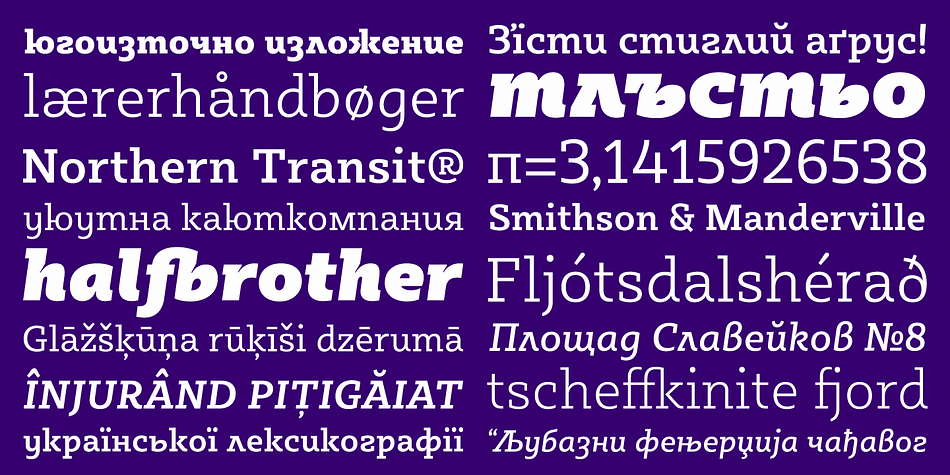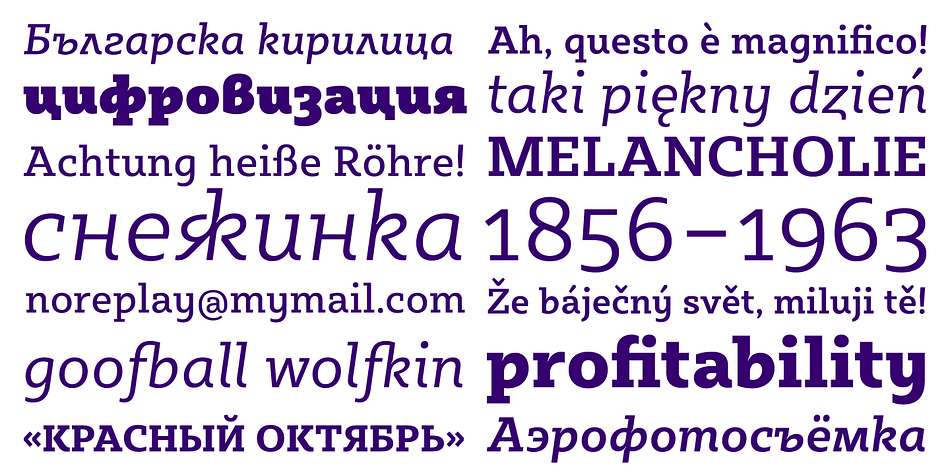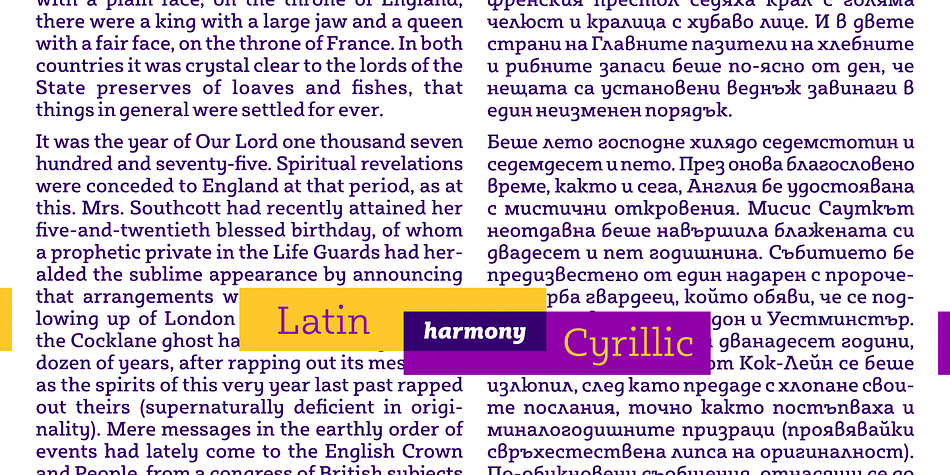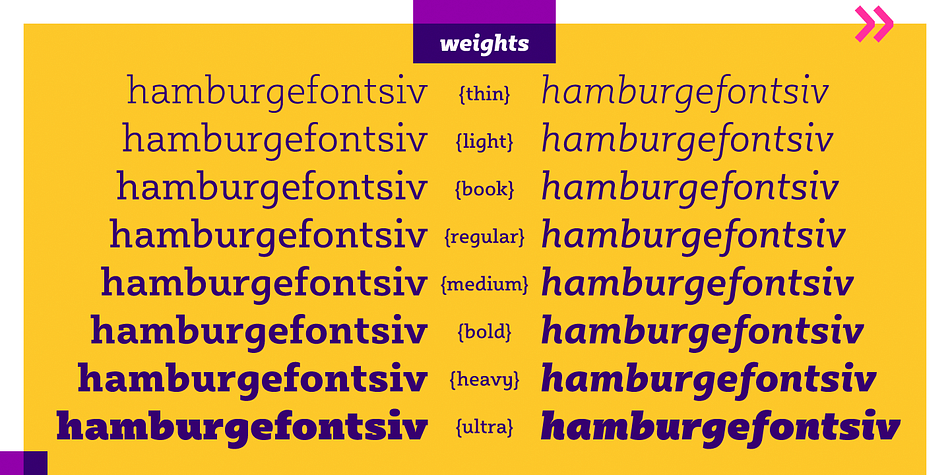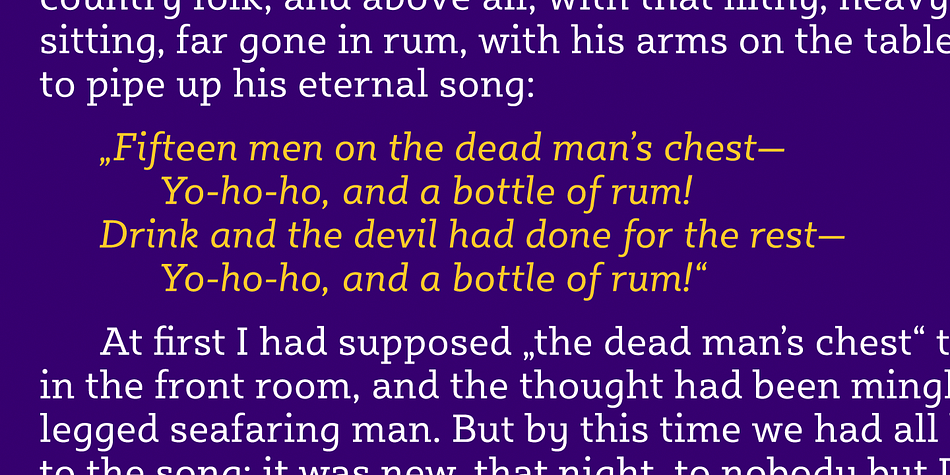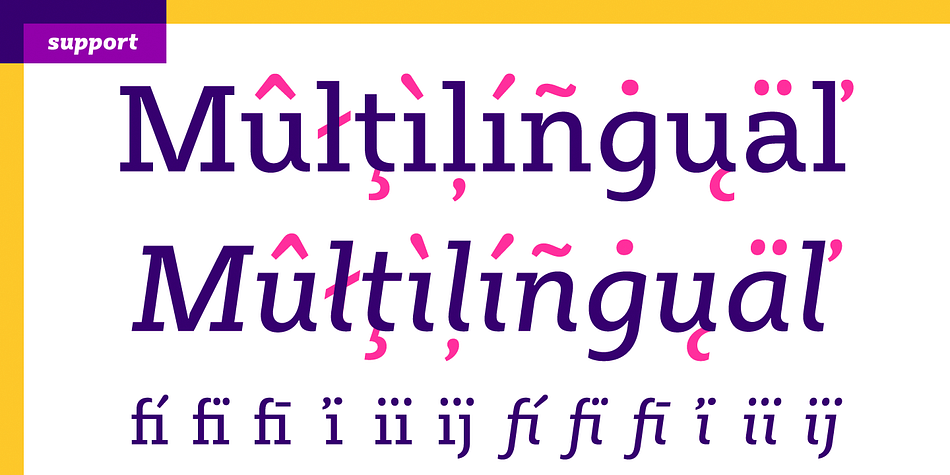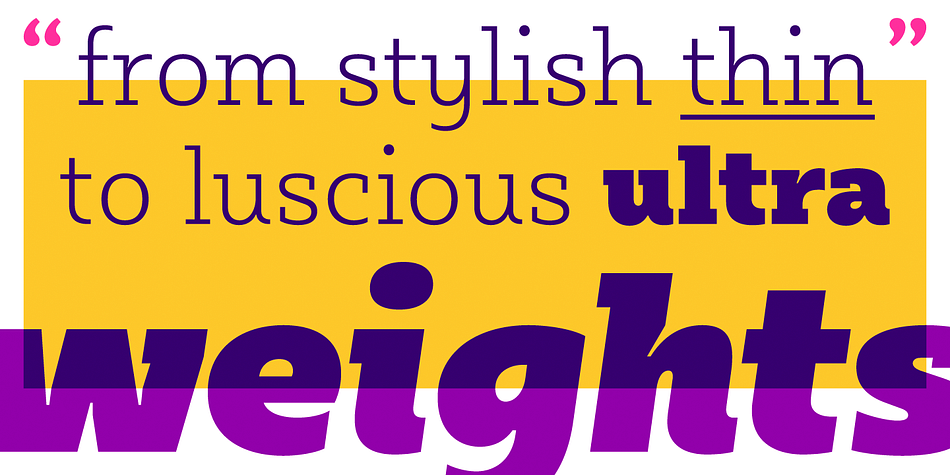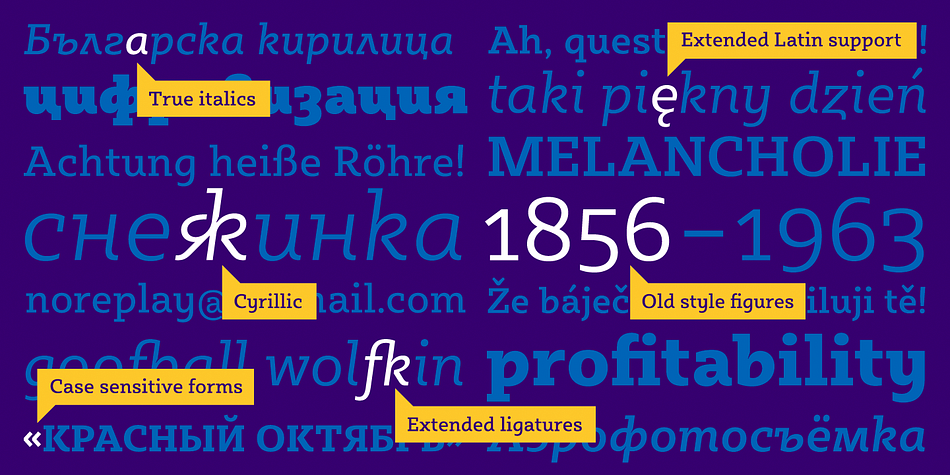
Sybilla is a slab serif font family. This typeface has sixteen styles and was published by Karandash.
Sybilla is a robust, but friendly, humanist slab serif well suitable for broad range of design projects. A true workhorse and superb text type family, Sybilla was especially designed with legibility in mind. Its soft almost cursive shapes and generous internal spaces define a slab serif that is easier on the readers eye and help establish a feeling of warmth and friendliness.
The type family consists of eight weights with complimentary italics. While the Light, Book, Regular and Medium weights are great performers for body text, the Thin, Bold and Heavy weights make an excellent choice for headlines. Also there is the specially designed Ultra weight if extra punch is needed. Sybilla has extensive multilingual support and specially designed Cyrillic that works harmoniously with its Latin counterparts a perfect choice for design projects that need both writing systems running side by side.